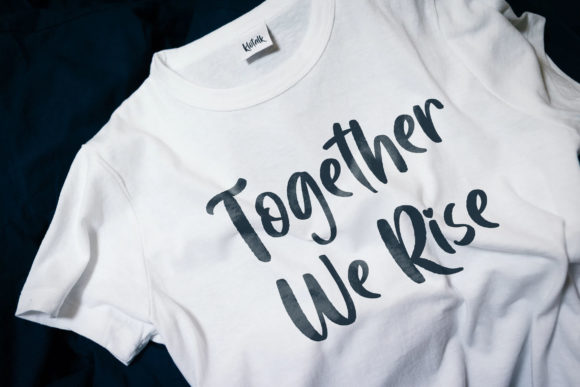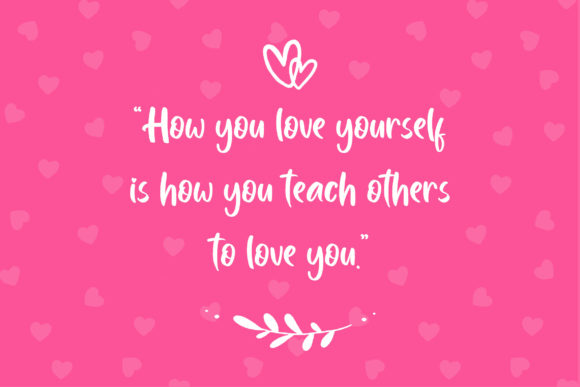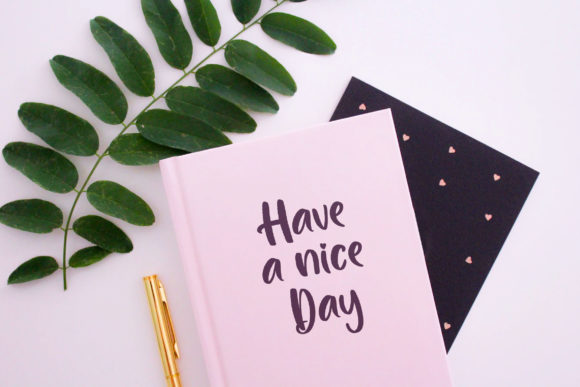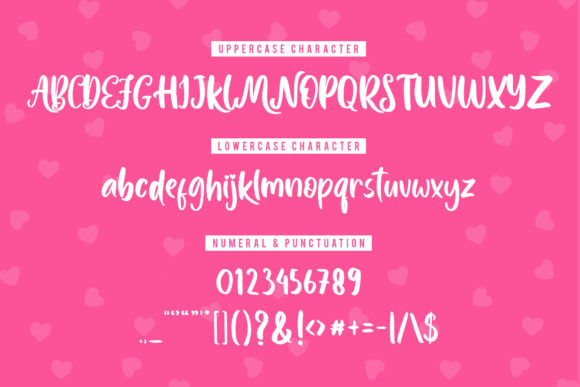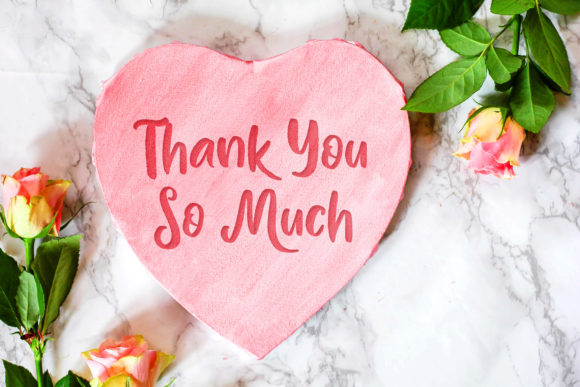
Introduction to Melanie Roselyn Font
As a designer, have you ever found yourself staring at a blank canvas, eager to bring your creative vision to life? The blank page can be intimidating, but what if you had the perfect companion to help you breathe life into your ideas? For many designers, the right font can be the difference between a mediocre design and a masterpiece. Enter the elegant and flowing Melanie Roselyn Font, a high-quality design resource that’s sure to elevate your creative project.
With its delicate and well-balanced characters, Melanie Roselyn Font is the perfect addition to any design. Whether you’re working on a free download or a commercial project, this font is sure to impress with its versatility and style. Plus, with a transparent background, you can easily layer it with other design elements to create a truly unique look.
So why is Melanie Roselyn Font so valuable for designers? For one, it’s a high-quality font that’s sure to add a touch of elegance to any design. Plus, its wide range of applications makes it a valuable resource for designers of all levels.
Melanie Roselyn Font
- High-quality design resource ideal for creative projects, including illustrations, graphics, and more.
- Designed with a unique, modern aesthetic, perfect for adding a touch of elegance to your work.
- Includes a range of characters and glyphs, making it a versatile design resource for any project.
Honest Review: Melanie Roselyn Font
I recently had the chance to work with the Melanie Roselyn Font, and I’m excited to share my thoughts with you. As a designer, I’m always on the lookout for high-quality design resources that can elevate my creative projects.
The Melanie Roselyn Font is a beautiful, elegant script font that’s perfect for wedding invitations, quotes, and other creative projects that require a touch of sophistication. One of the things I love about this font is its transparent background, which makes it super easy to use in various design settings.
Here are some of the things that work well with this font:
- ✨ Beautiful, elegant script design
- ✨ High-quality, crisp typography
- ✨ Transparent background for easy use
- ✨ Great for wedding invitations, quotes, and other creative projects
Overall, I’m really impressed with the Melanie Roselyn Font. It’s a great addition to any designer’s toolkit, and I would definitely recommend it for creative projects that require a touch of elegance.
The Melanie Roselyn Font is ideal for various design projects, including wedding invitations, branding materials, and social media graphics. Its high-quality design and transparent background make it a versatile design resource.
To get the most out of the Melanie Roselyn Font, use it in combination with other design elements, such as graphics and images. Experiment with different font sizes and colors to create a visually appealing design.